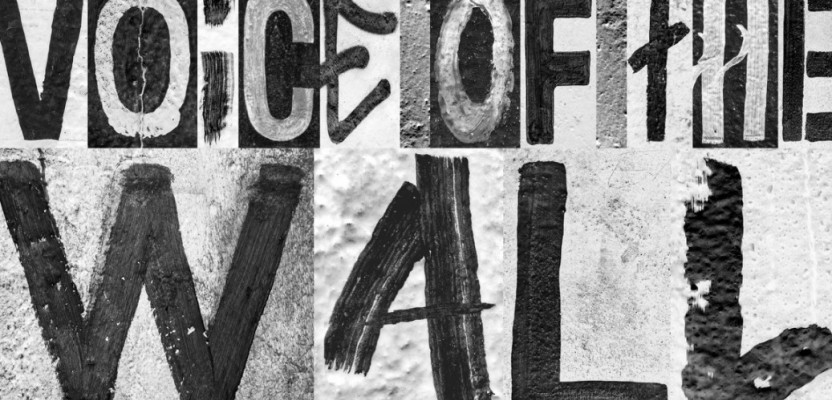
A film and new typeface inspired by original graffiti from the Berlin Wall has been created as part of a campaign to mark the 30th anniversary of the structure coming down in November 1989.
The film, created by HEIMAT Berlin, includes sirens, dogs barking and gunshots while depicting the suffering the Wall witnessed. It ends with the warning, “Division is freedom’s biggest threat”.
HEIMAT also created the font, which is available to download and the campaign encourages people to make their own statements for freedom, using the anniversary typeface. The statements will be collected and turned into a book which will be sent as a message to the current leaders of the world.
The campaign is for street art association, The Cultural Heirs, a non-profit association committed to integration and violence prevention as well as the prevention of discrimination and inequalities in society.
It explores the threat walls of all kinds can pose to society and freedoms worldwide. The starting point was the question: if walls could talk, what would the Berlin Wall say today? In this way, the typeset allows the Wall a voice and the ability to make a statement about freedom in our current world.
The typeface was designed using the 26 letters of the alphabet – each taken from actual graffiti from the Berlin Wall, which became a politically-charged canvas for numerous street artists over the years.
“Street art and iconic design can have a dramatic impact on culture, and creating a campaign to celebrate freedom and warn about division to mark this important anniversary was very meaningful to us,” said Matthias Storath, CCO at HEIMAT. “We hope that this project will help remind audiences of our hard-won freedoms, which we must cherish and enjoy.”